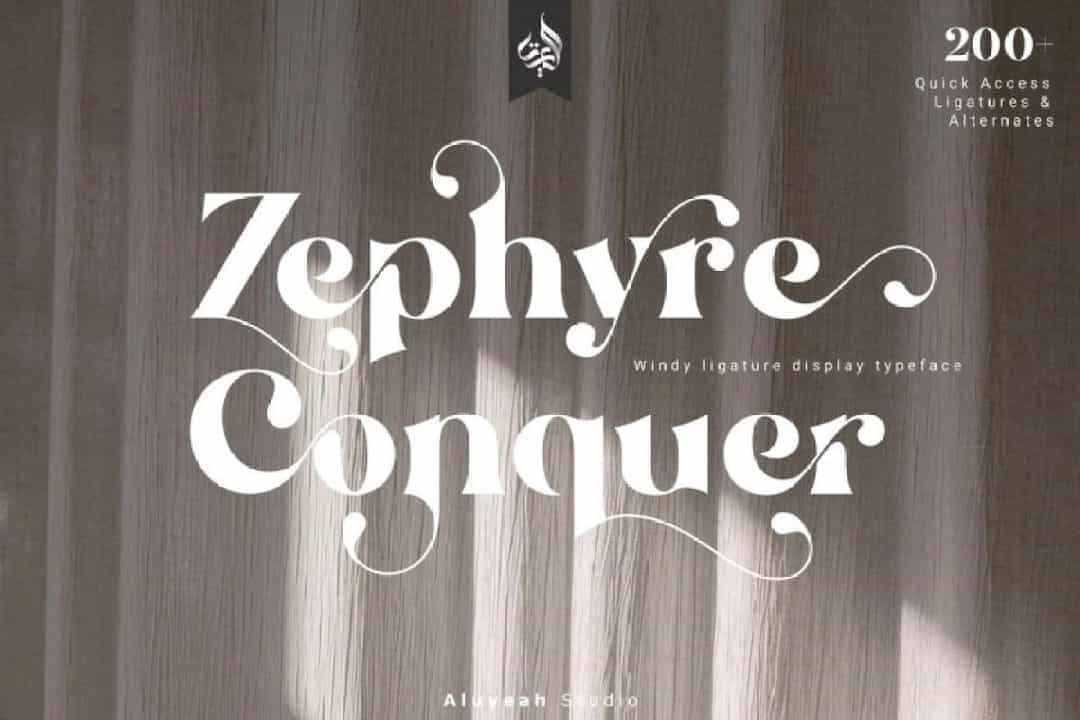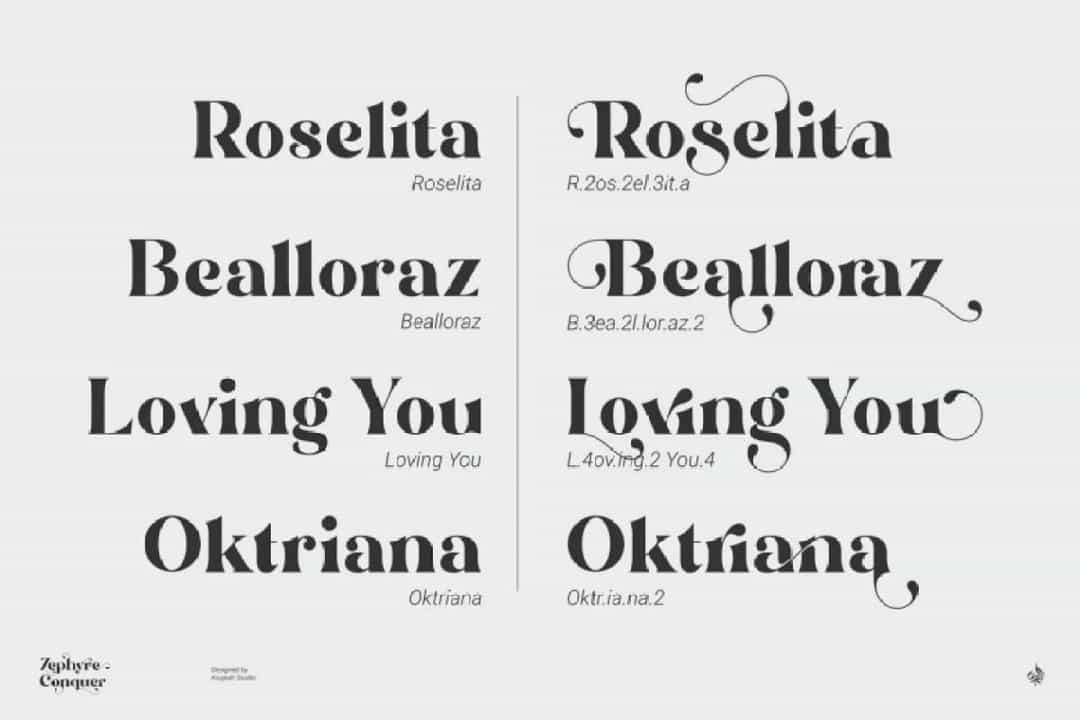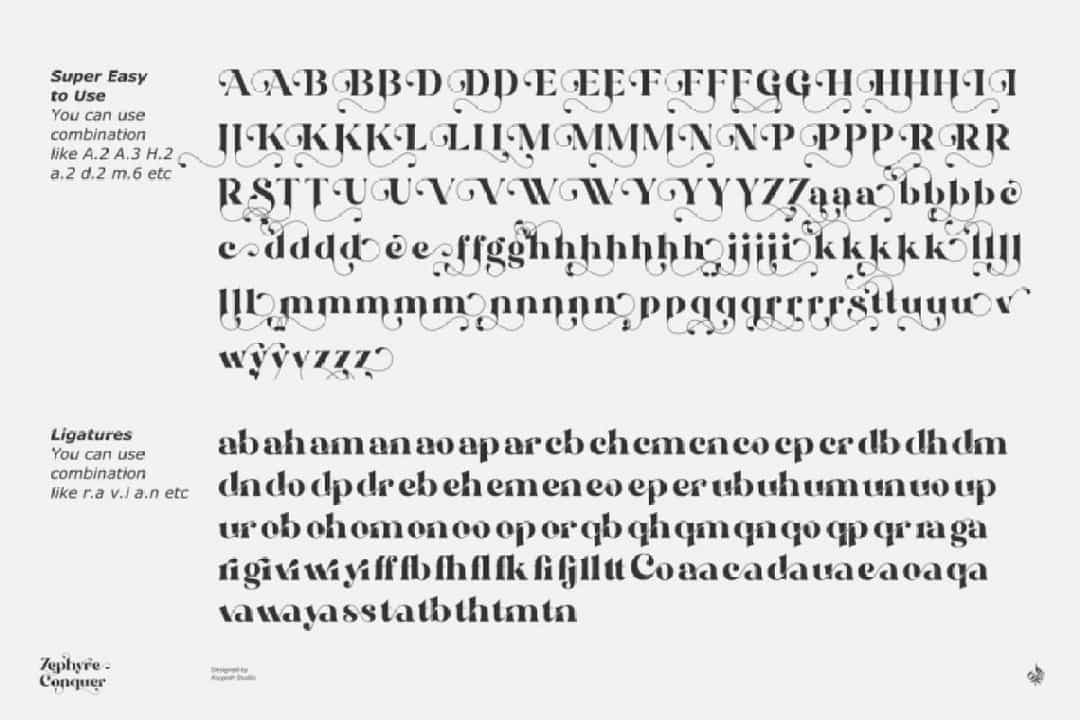
Zephyre Conquer Font
Zephyre Conquer font is a contemporary serif display typeface inspired by luxurious and elegant. With its combination of thoughtful design and seductive temptations, this typeface boasts an undeniably beautiful style that commands attention while adding class to your work. Get in on its success now by using Zephyre Conquer!